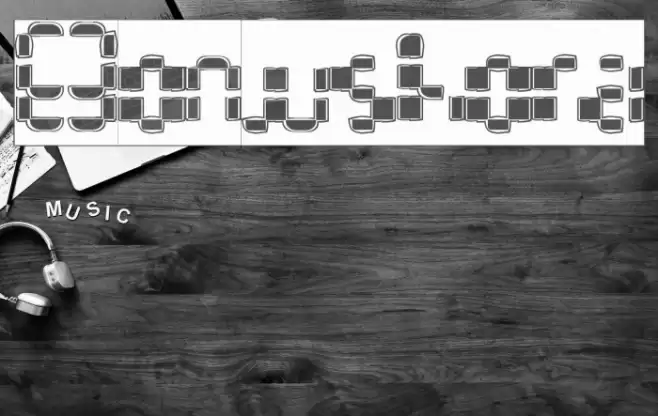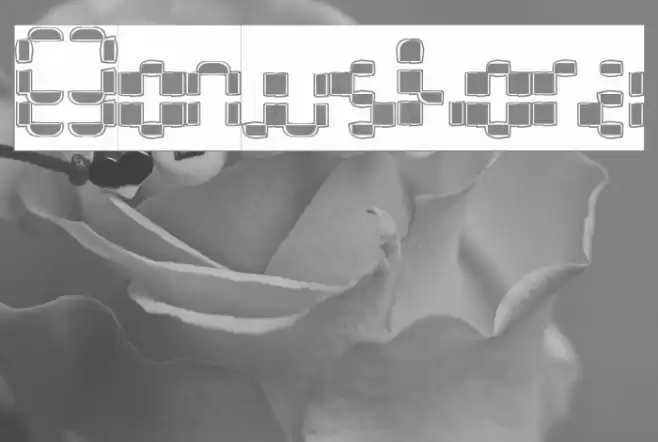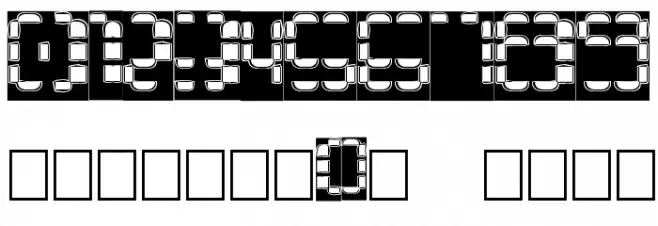
Bonushora Font
Bonushora Description
This font features a unique, futuristic design with a digital, pixelated appearance. Each character is composed of blocky, geometric shapes that create a sense of movement and modernity. The letters are enclosed within a grid-like structure, giving them a distinct, tech-inspired look. The font is highly stylized, making it ideal for projects that require a bold, eye-catching typeface. The characters are evenly spaced, maintaining a consistent rhythm across the text. This font's innovative style makes it suitable for creative and experimental designs.
A futuristic, pixelated font with a tech-inspired, geometric design from Outline fonts.
- Proposed Projects: Ideal for digital art, tech branding, video game titles, and sci-fi themed projects.